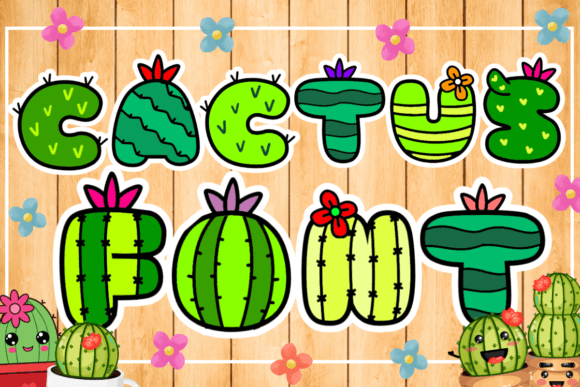
The Prickly yet Perfect Cactus Font: A Designer’s Delight
I still remember the design project that led me to discover the Cactus Font. I was working on a fun, whimsical branding project for a new cactus-themed cafe, and I was struggling to find a font that captured the playful, spiny spirit of the brand. That’s when I stumbled upon Cactus Font, and it was love at first sight! 🤩
Each letter looked like a tiny, adorable cactus, complete with colorful PNG images to boot. I knew right then and there that this font was going to be the perfect fit for my project. In this article, I’ll share my experience with Cactus Font, including what I love about it, some quirks to watch out for, and how to make the most of its features in popular design platforms.
- ✨ Unique and playful design that’s sure to grab attention
- ✅ Colorful PNG images of each letter for easy use in designs
- ✅ Great for creative and eye-catching designs, from branding to invitations
- ✅ Easy to read and use, even for beginners
While Cactus Font is an amazing addition to any design project, there are a few things to keep in mind:
- ⚠️ The font’s playful design may not be suitable for more formal or professional projects
- 🤔 Some letters may be more intricate than others, which can affect legibility at smaller sizes
The Story Behind Cactus Font
Cactus Font was designed by a team of creatives who wanted to bring a touch of the desert to the world of typography. Inspired by the prickly yet charming cactus, they crafted a font that’s both fun and functional. Whether you’re a designer, crafter, or creative hobbyist, Cactus Font is sure to bring a smile to your face and a touch of whimsy to your designs.